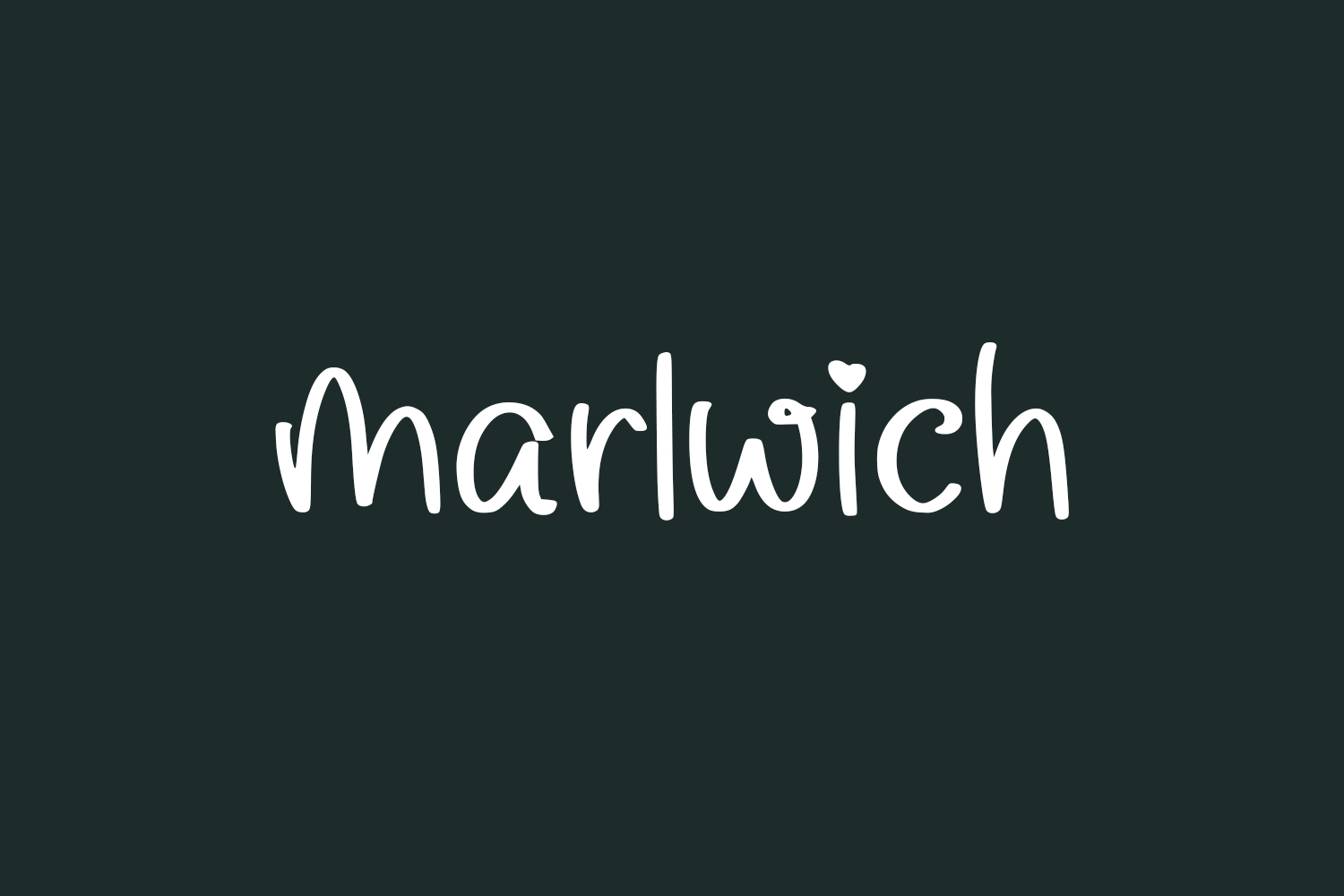
Marlwich Free Font evokes feelings of warmth and simplicity. Its cute, simple lettered handwriting style gives it a timeless and charming feel, perfect for creating designs that exude a sense of nostalgia and heartfelt emotion. The font’s subtle variations in the letters give it a natural and human touch, making it ideal for creating personalized and heartfelt designs. Marlwich font is perfect for creating designs that aim to evoke feelings of warmth, nostalgia, and personal touch. It can be used for creating invitations, handwritten notes, and any project that wants to connect with people on an emotional level and convey a sense of authenticity and sincerity. It has the ability to make your designs stand out and look special, making your message even more meaningful.